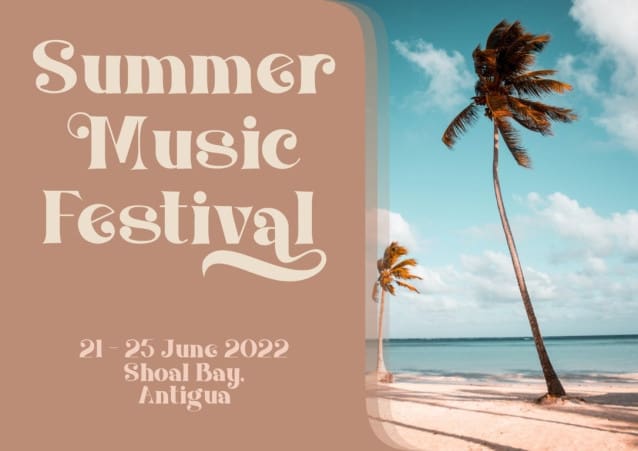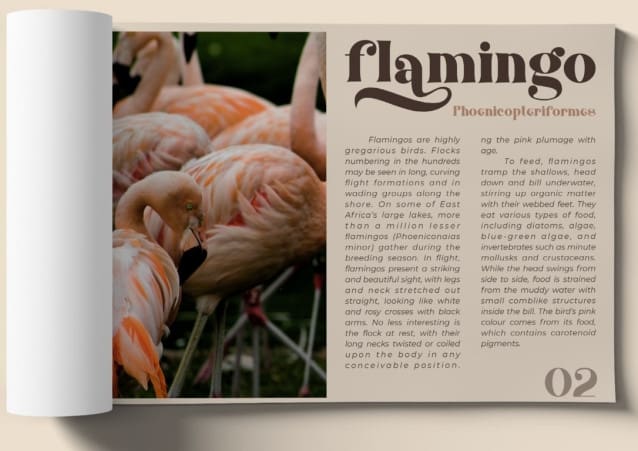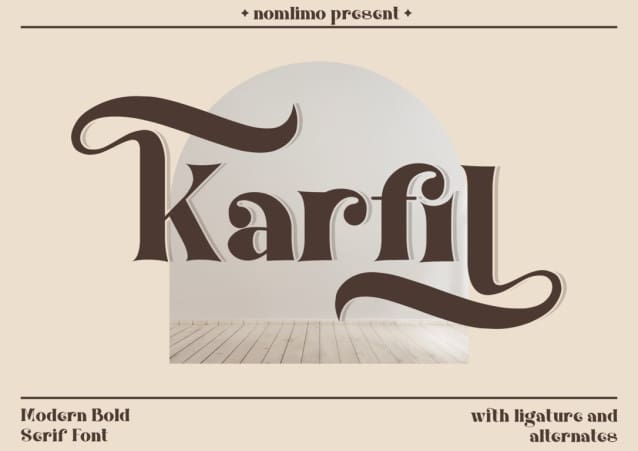
Karfil Font
Karfil Font, a beauty and elegant serif display font. This font is perfect for creating elegant invitation cards, decorations, clothing products, greeting cards, and more. It includes uppercase and lowercase letters, numerals, punctuation marks, and multilingual support. Additionally, Karfil offers various ligatures and stylish alternates to enhance your designs.